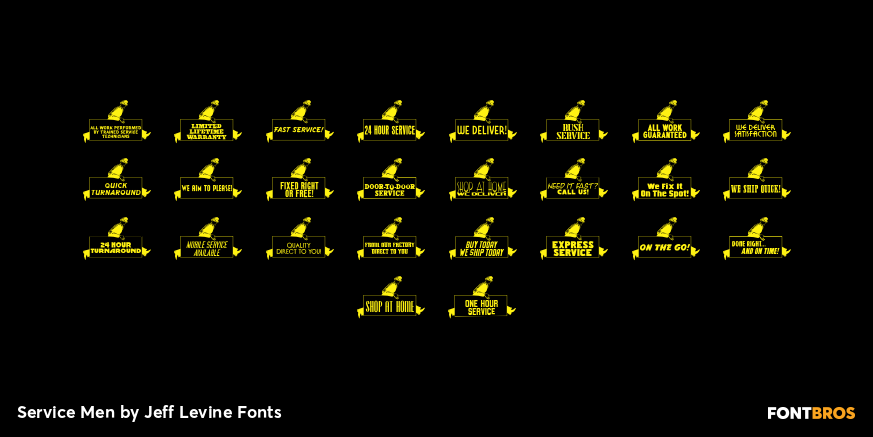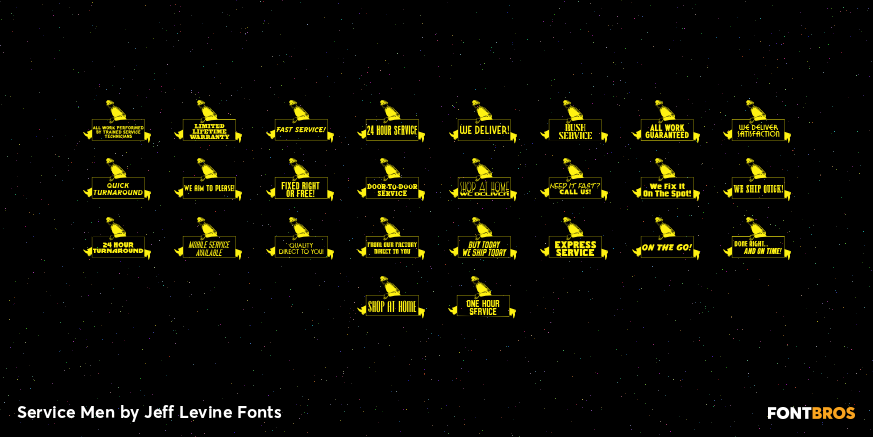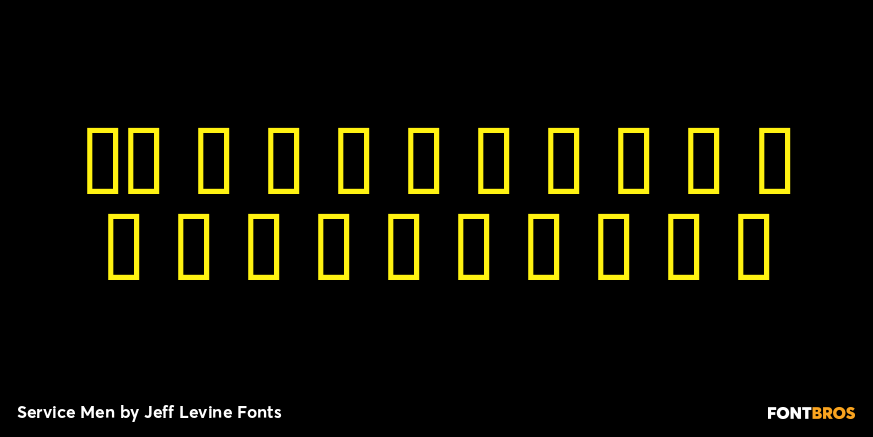
Service Men
Service Men JNL is a collection of twenty-six service industry-related messages carried by a courier. Each image is offered facing left and facing right.
A blank message panel is available on both the period and comma keys for adding special text.
The classic 1940s-era artwork adds a nostalgic touch to these simple reminders.